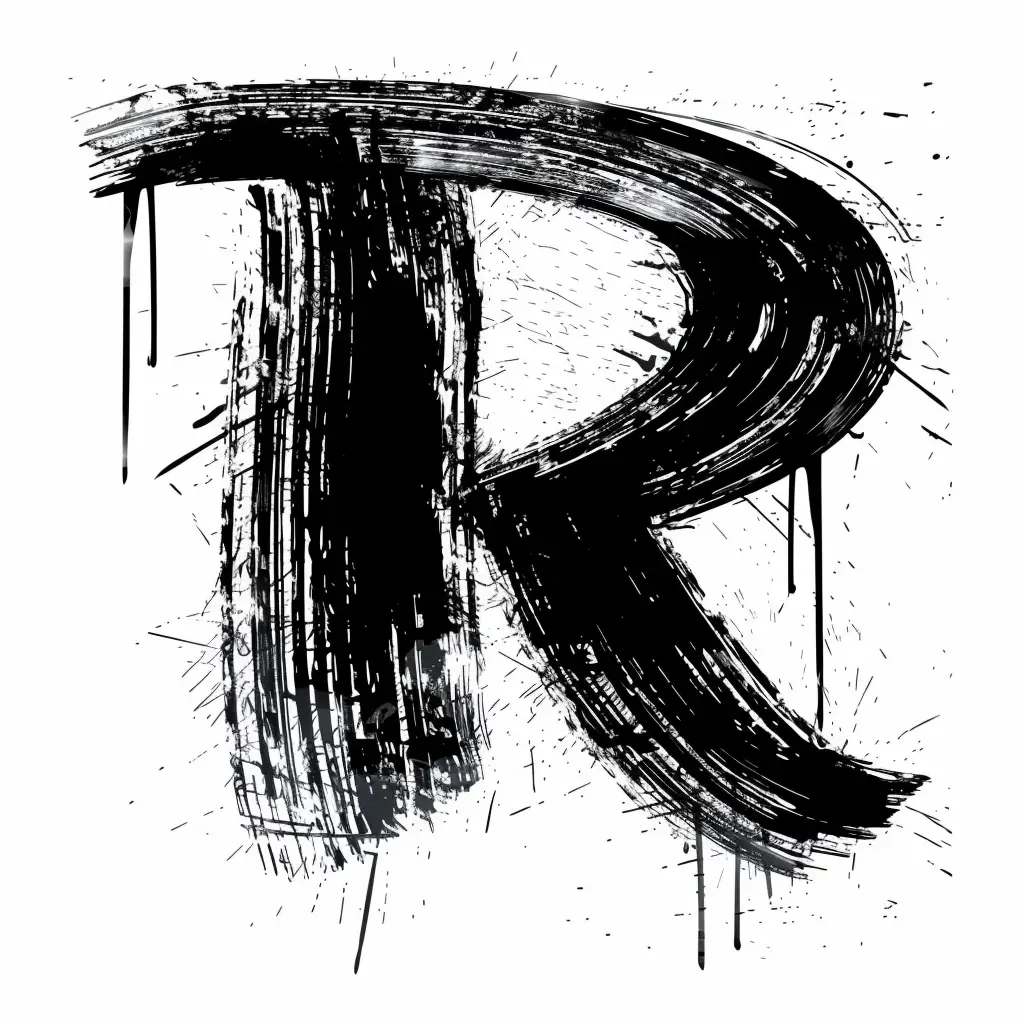
The image features a stylized, black letter "R" rendered in a rough, brushstroke-like style with visible texture, drips, and splatters. The monochromatic design uses stark black against a white background, emphasizing the dynamic, artistic, and slightly chaotic visual elements of the letterform.